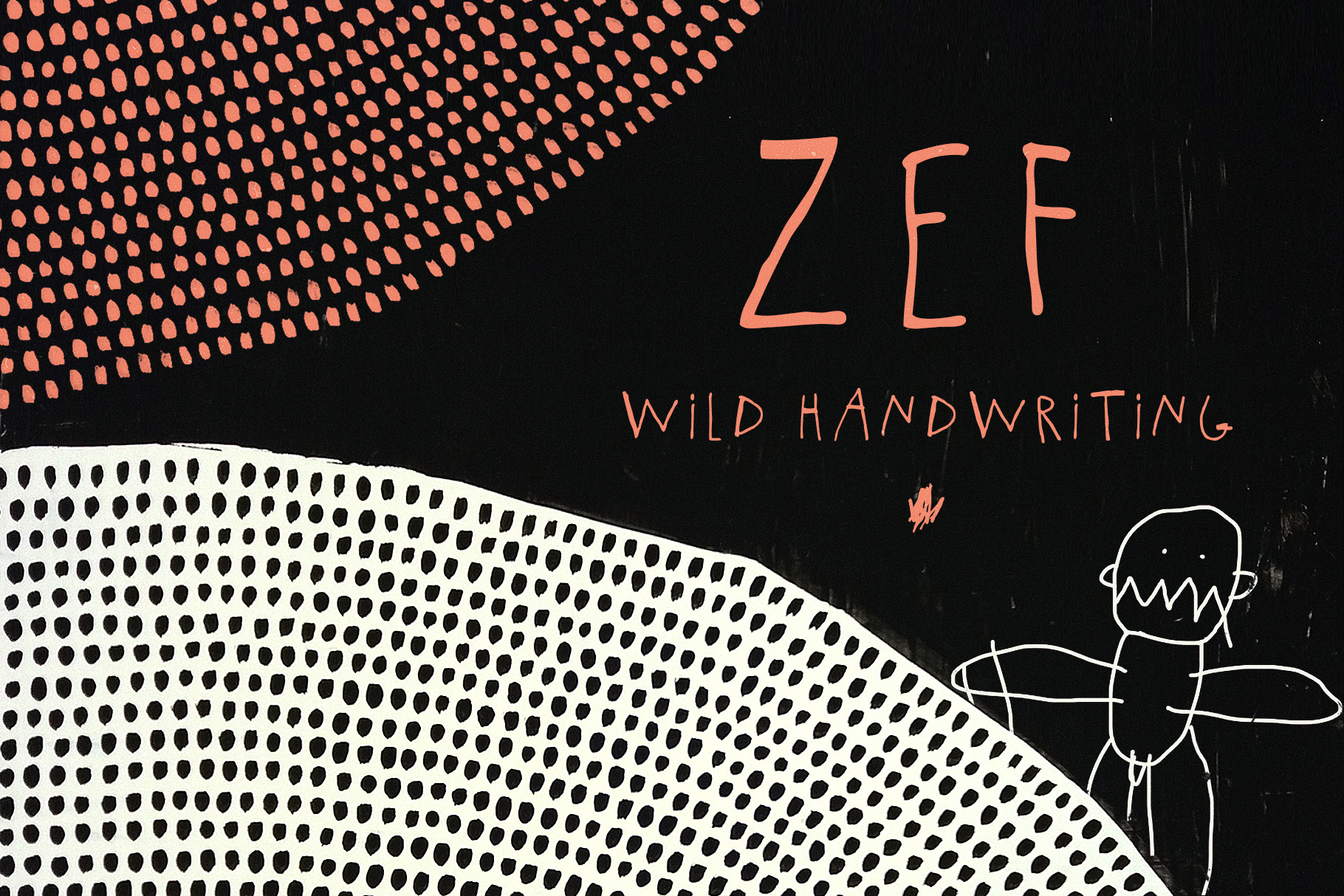
Handwritten careless font.
This is a hand-drawn, careless and hooligan typeface. For this font I was inspired by children's drawing and the work of the group "Die Antwoord". For those who like artistic original fonts. File in the format otf, ttf.